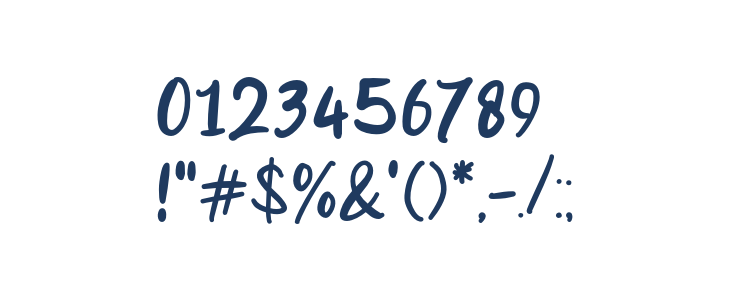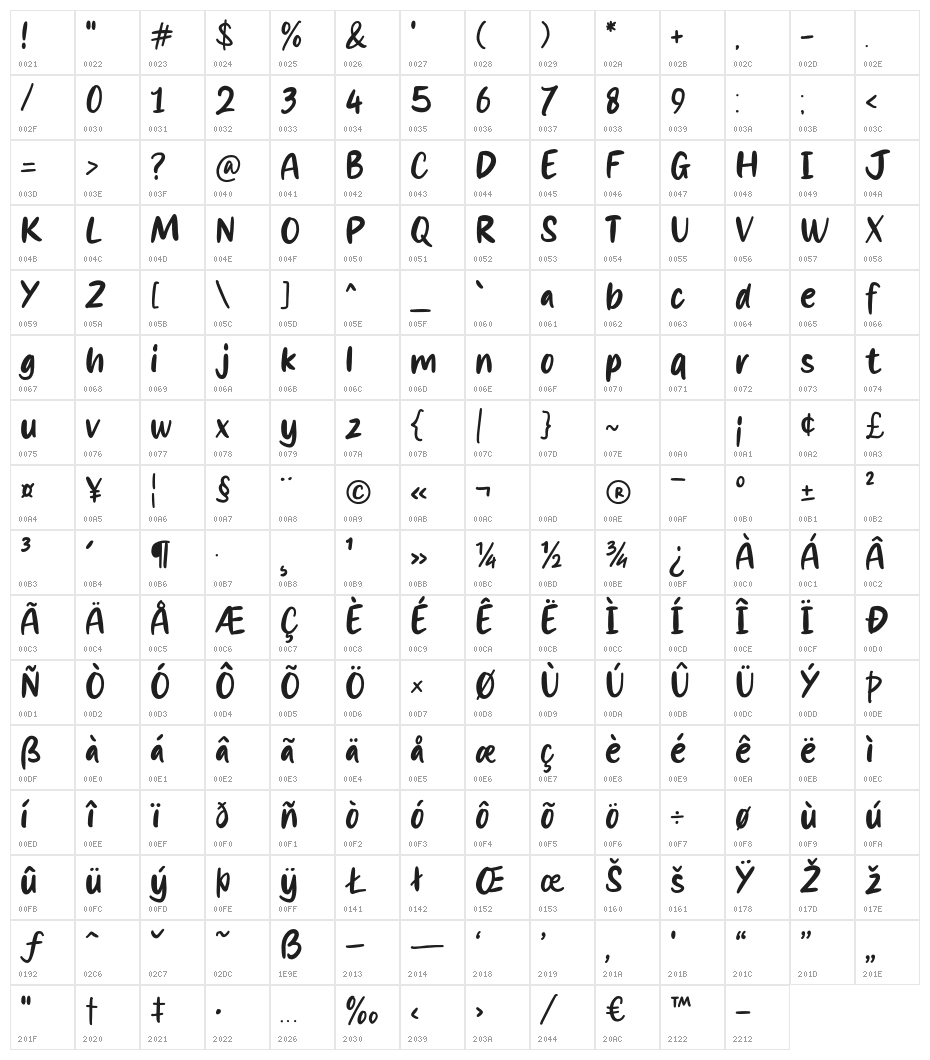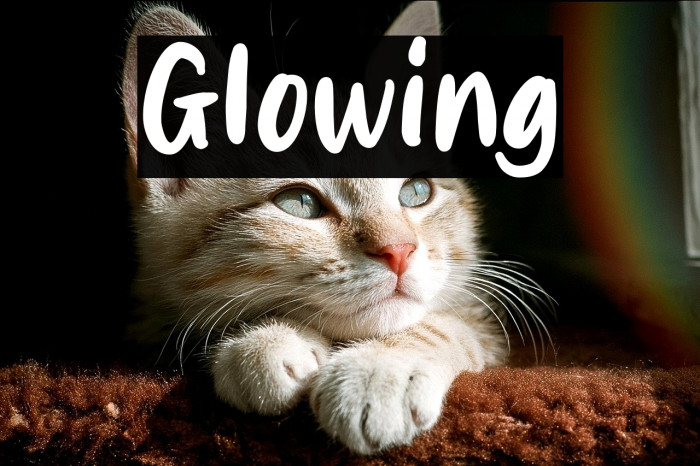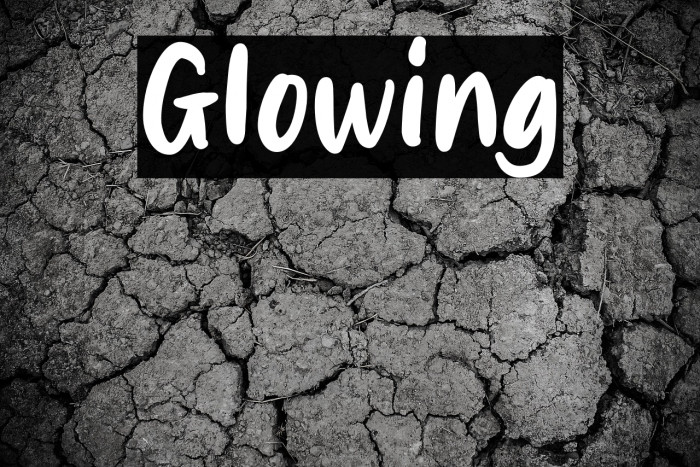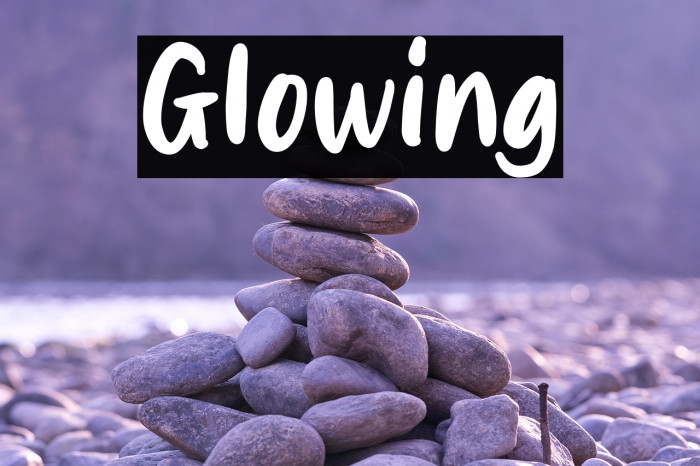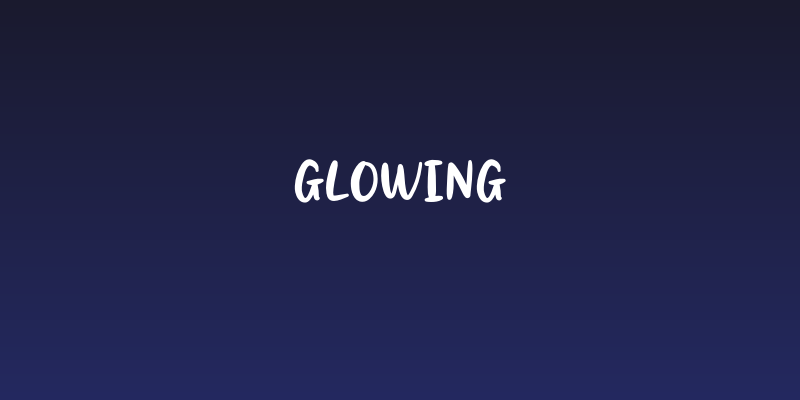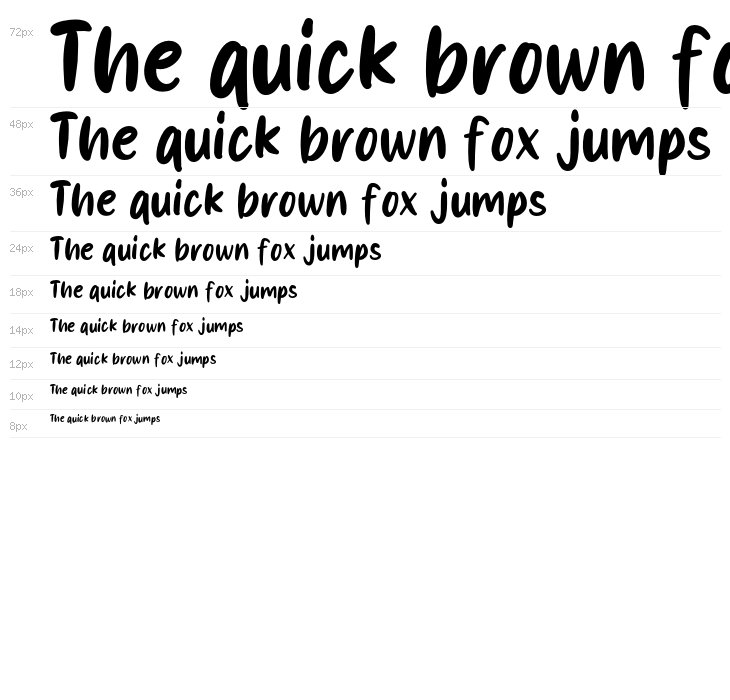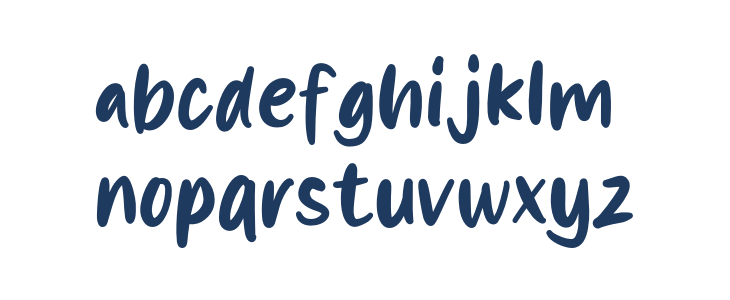
Glowing Font
Glowing Description
This font features a bold, handwritten style with a playful and energetic appearance. The letters are slightly slanted, giving it a casual and informal feel. The strokes are thick and consistent, providing a strong visual impact. The characters are well-rounded with smooth curves, enhancing its friendly and approachable look. The spacing between the letters is moderately tight, which helps maintain readability while adding to the cohesive flow of the text. The numbers and special characters are designed to match the overall style, ensuring uniformity across all elements.
| Proposed Projects | Ideal for greeting cards, posters, social media graphics, and branding projects that require a personal touch. |